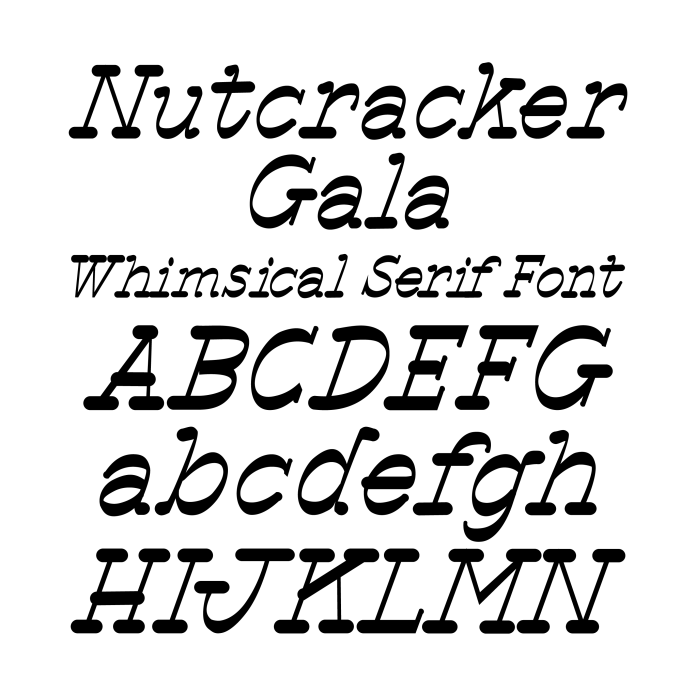
BFC Nutcracker Gala Handwritten Serif Whimsical Font
The ultimate crafting font perfect for all your holiday projects! Designed with crafters in mind, it features smooth, thin strokes that make it ideal for your Silhouette. This festive, whimsical typeface brings holiday cheer to every design, from Christmas cards and gift tags to ornaments and DIY decor. With playful swirls and easy-to-read characters, it’s made for adding a personal touch to your seasonal creations. Spark joy this holiday season with a font that’s as merry and bright as your crafts!